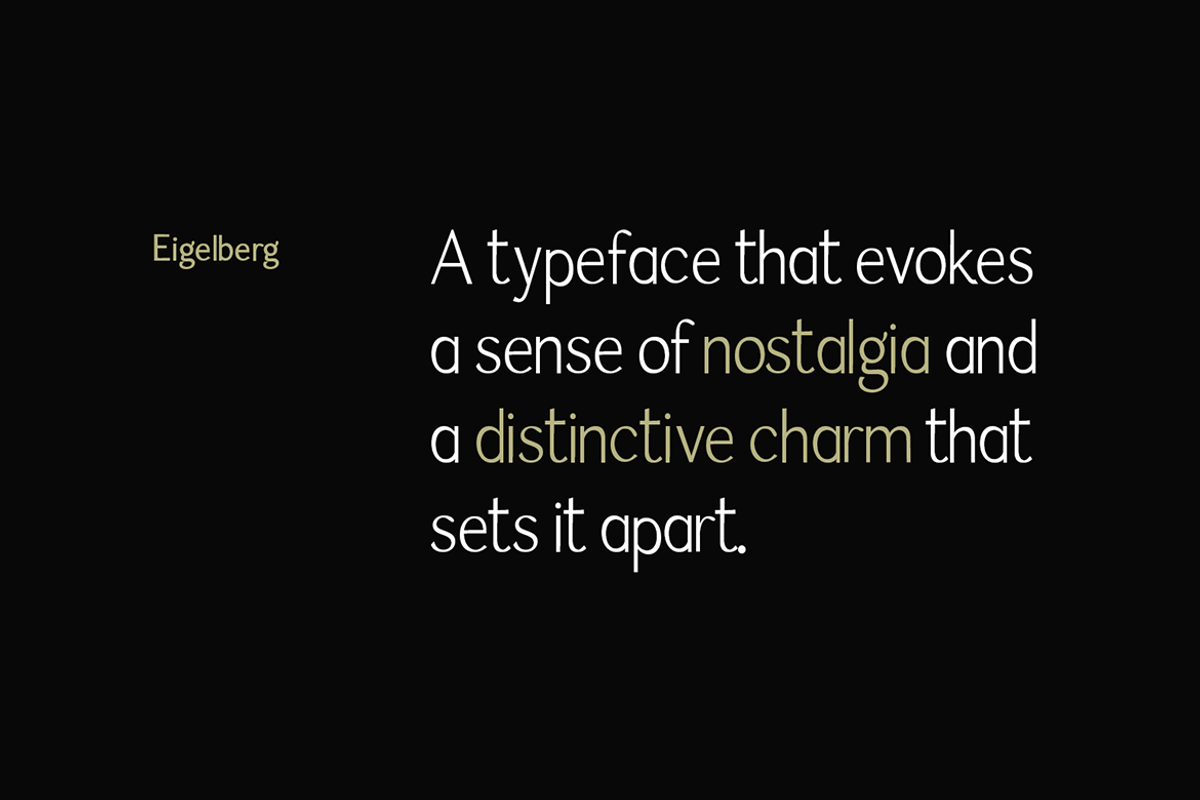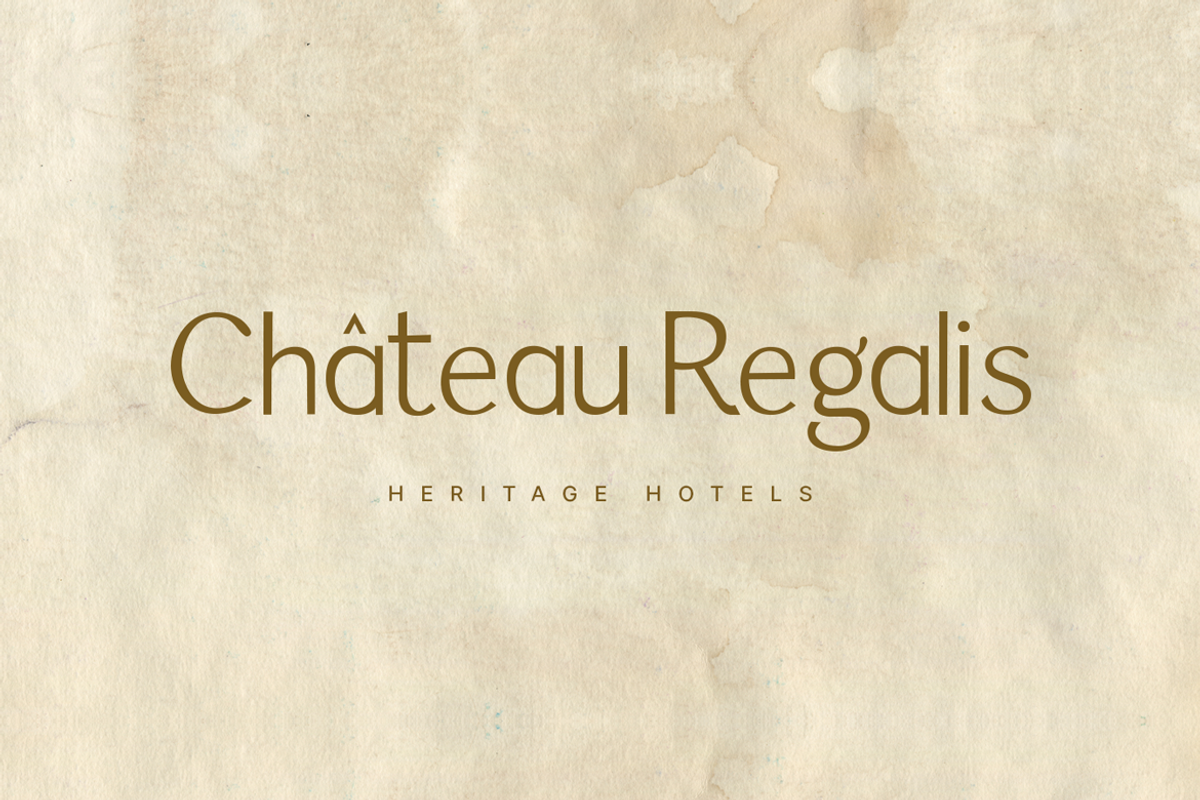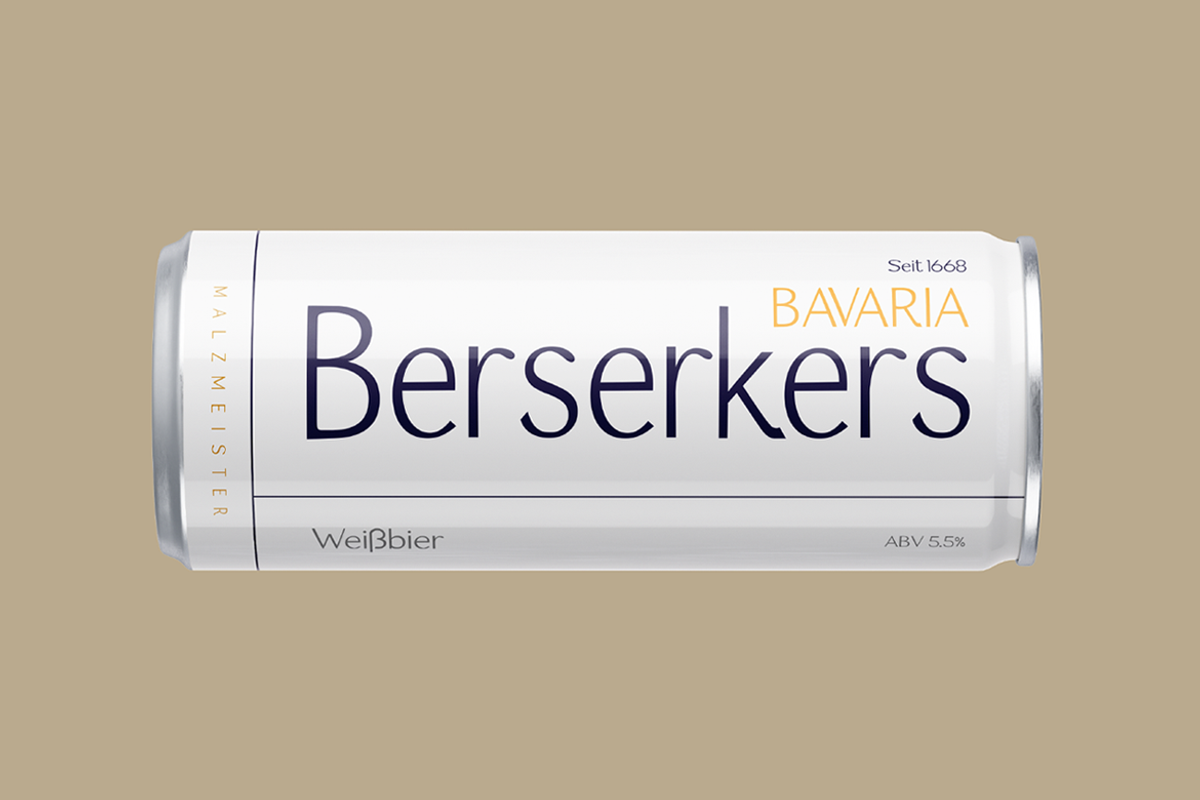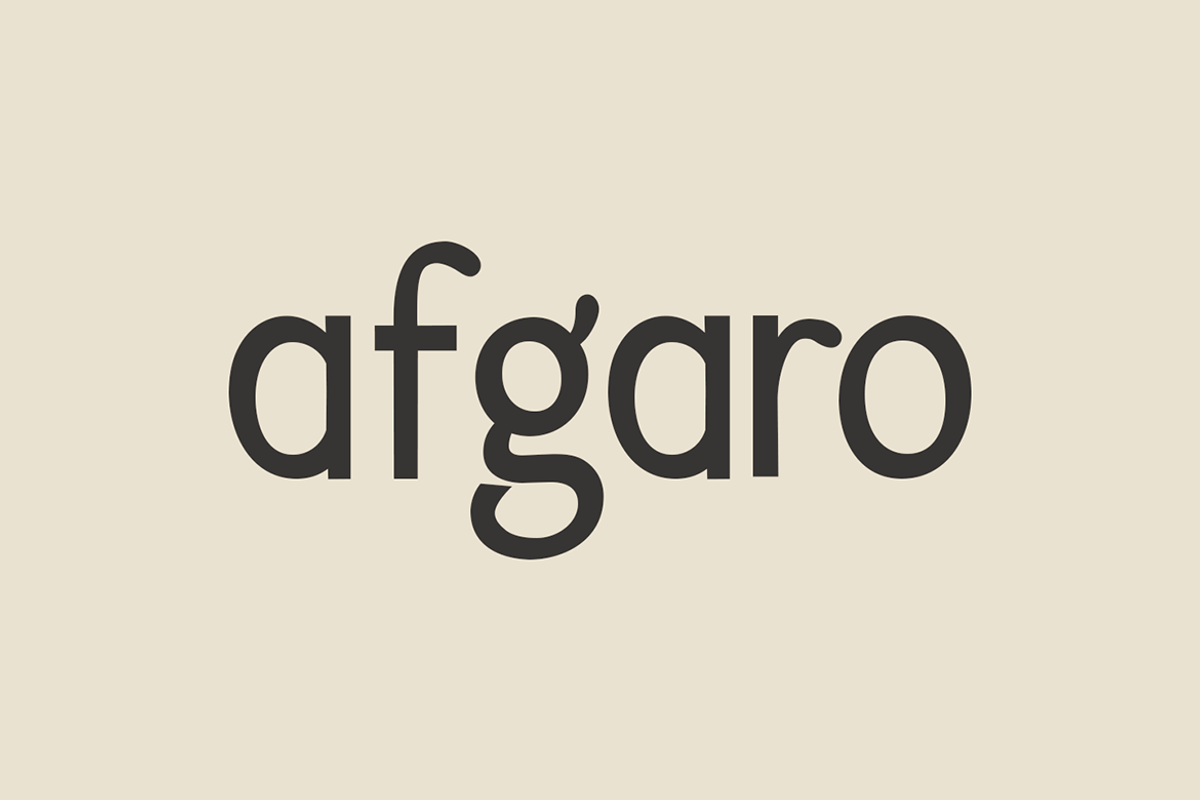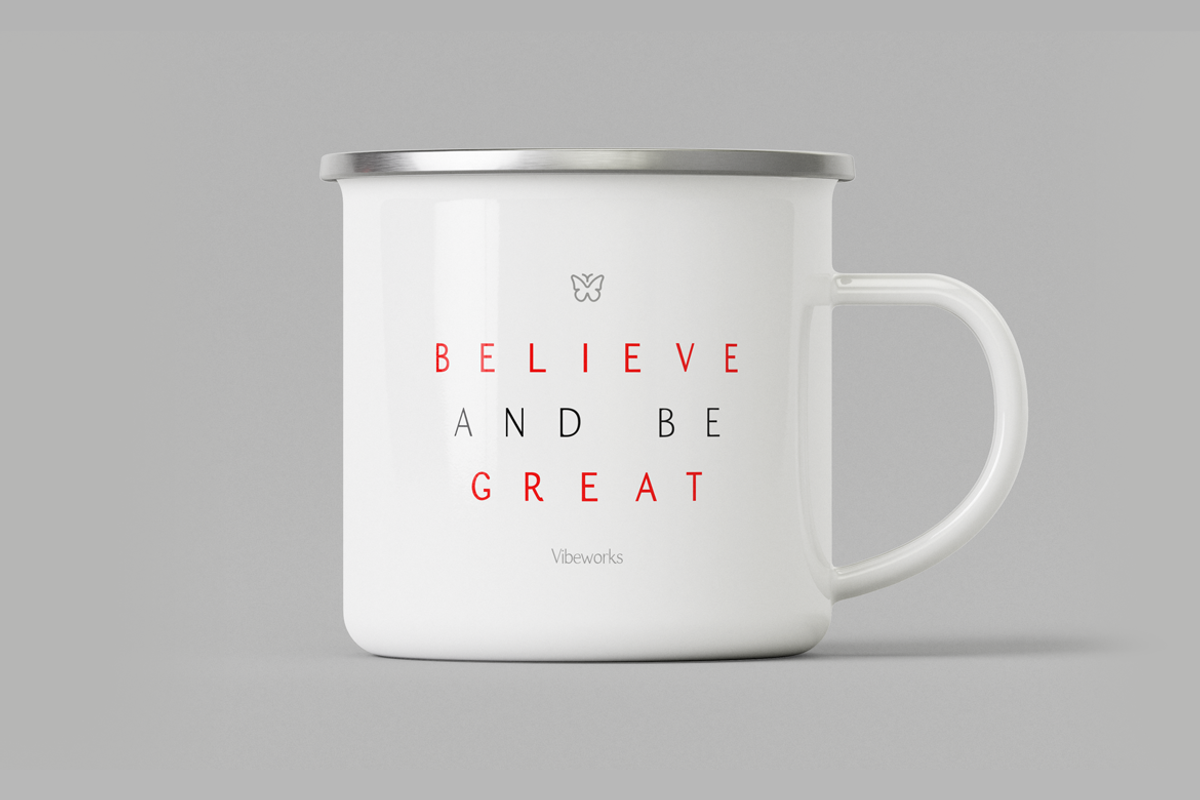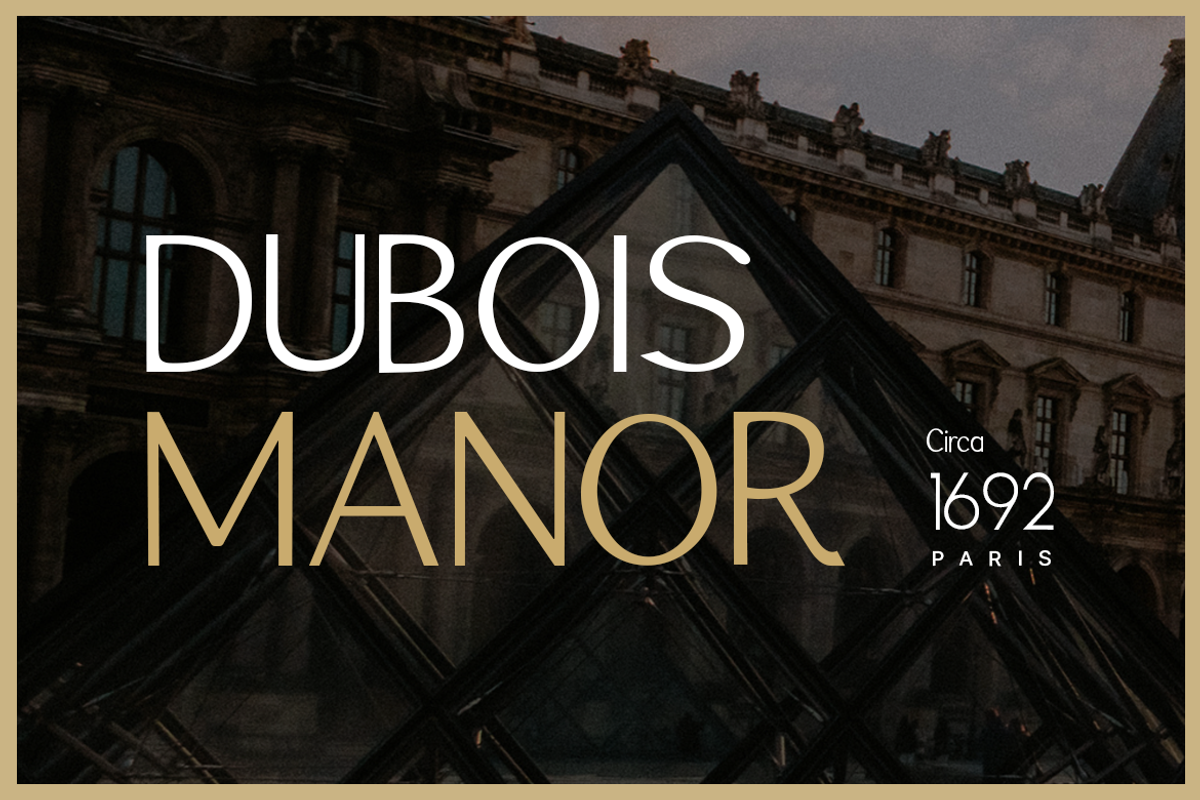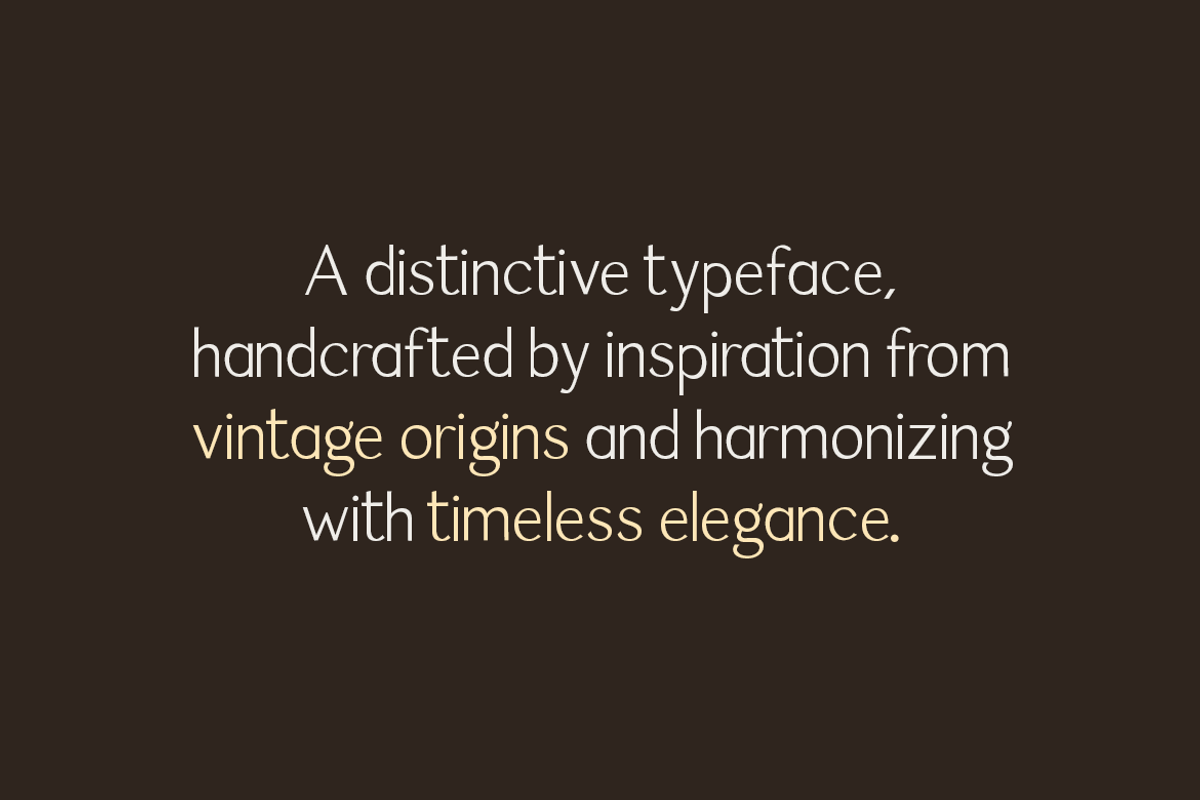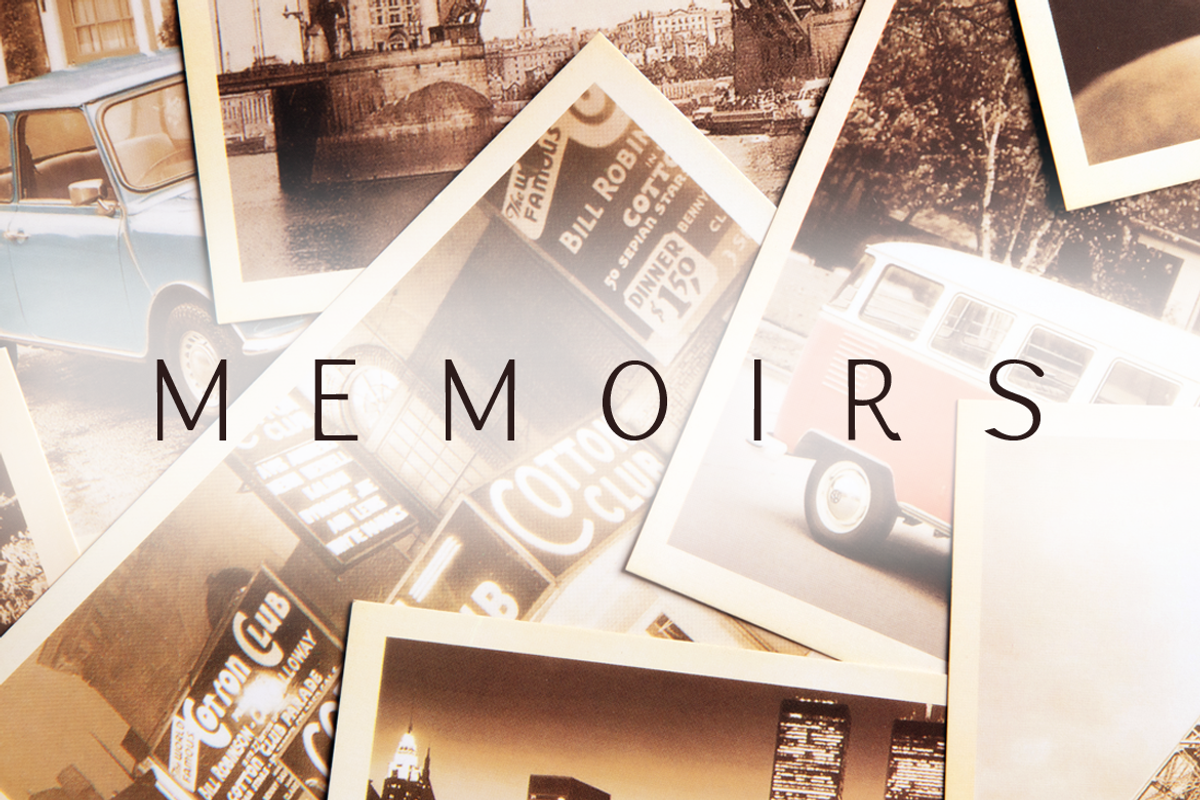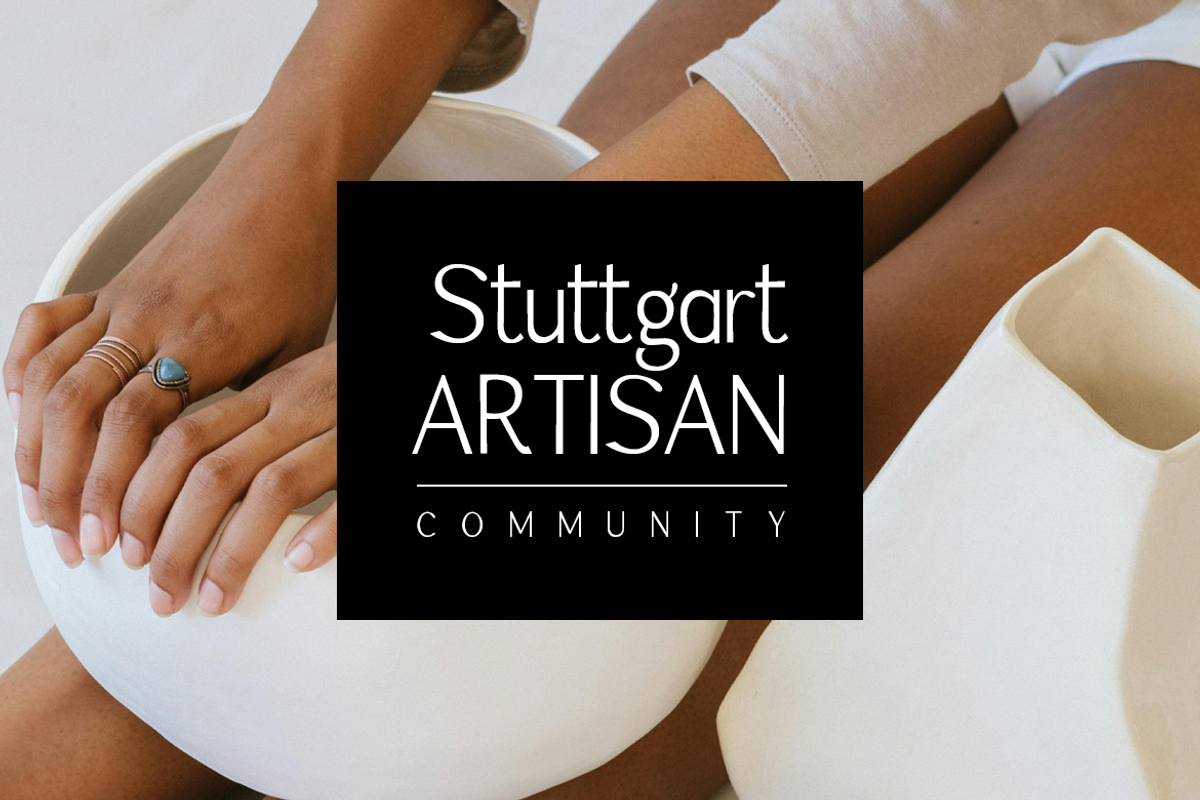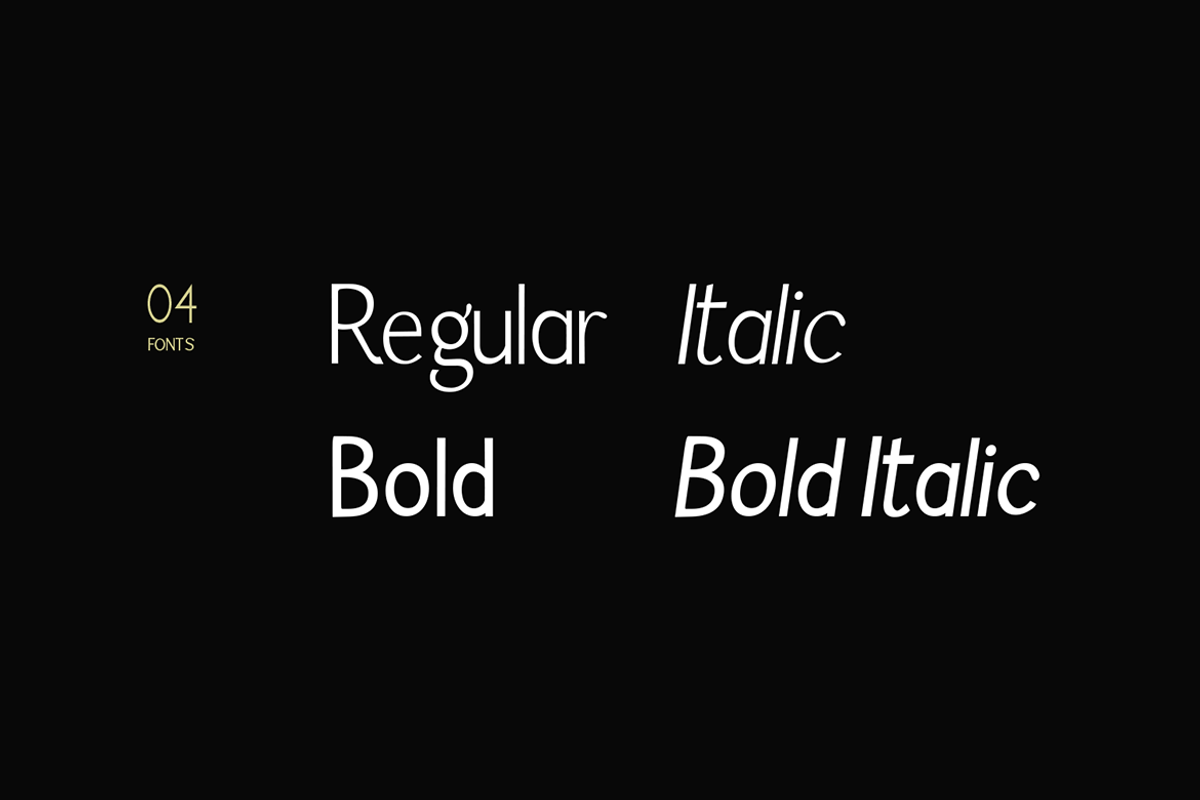
EIGELBERG - Unique Font Family
EIGELBERG is a unique typeface that evokes a sense of nostalgia and a distinctive charm that sets it apart. This timeless font will add a touch of gravitas and grandeur to any project. Perfect for creating a vintage identity and giving your text a touch of sophistication, this one-of-a-kind font is sure to stand out and make an impact
EIGELBERG can be used for multi-purpose textual representations as well as branding, logotypes, and display purposes. It is especially suitable for creating exceptional logos, promotional content, and marketing graphics that can capture your visitors' attention. By adjusting the letterspacing of the font, you can have more design options for your creative projects. Take a look at the examples above to get a better idea of the potential of this typeface.
The EIGELBERG family contains a total of 4 fonts featuring two weights (Regular / Bold) with uprights and italics equivalent of each weight. Each weight includes extended language support including Western European & Central European sets. A total of 277 glyphs are included. The pack contains OTF, TTF as Desktop fonts, and optional Web Fonts (all EOT, SVG, TTF, WOFF, and WOFF2 formats included) as licensing options.
Total number of fonts in the family: 04 (Regular, Bold, Italic, Bold Italic)
Total number of glyphs in each font: 277